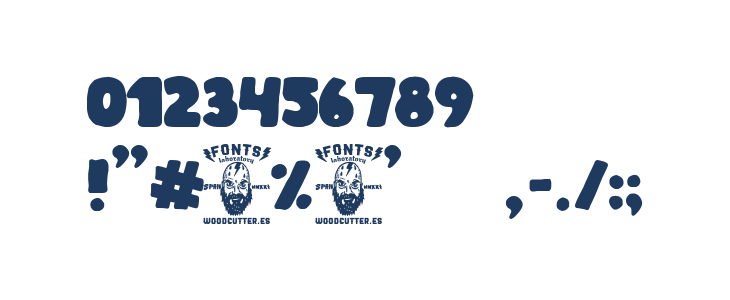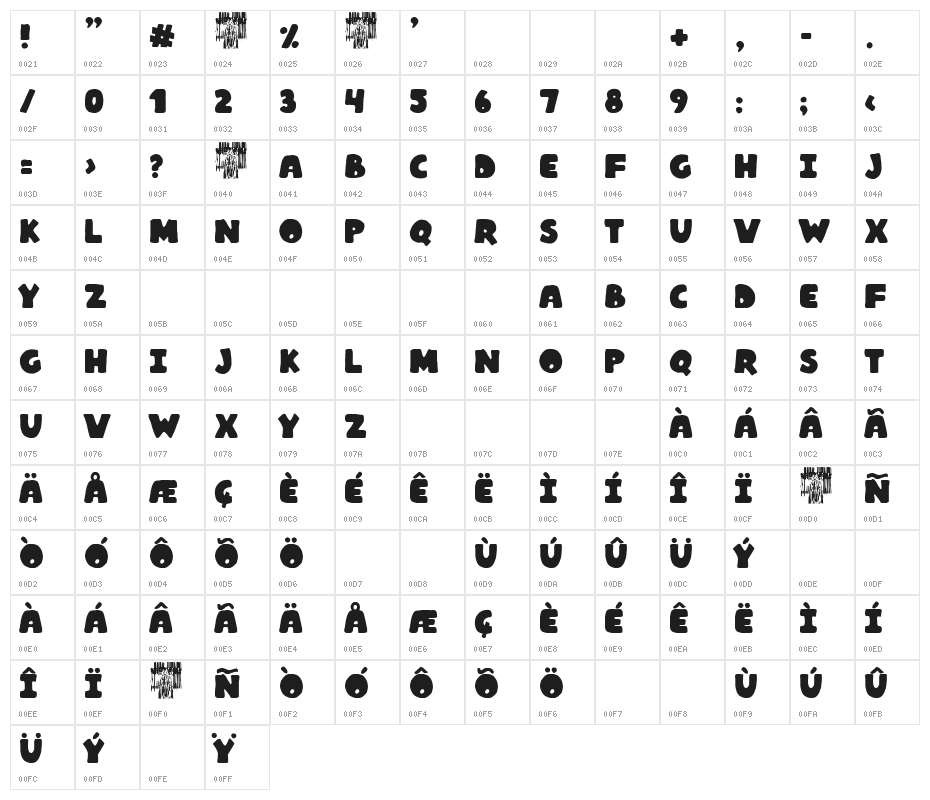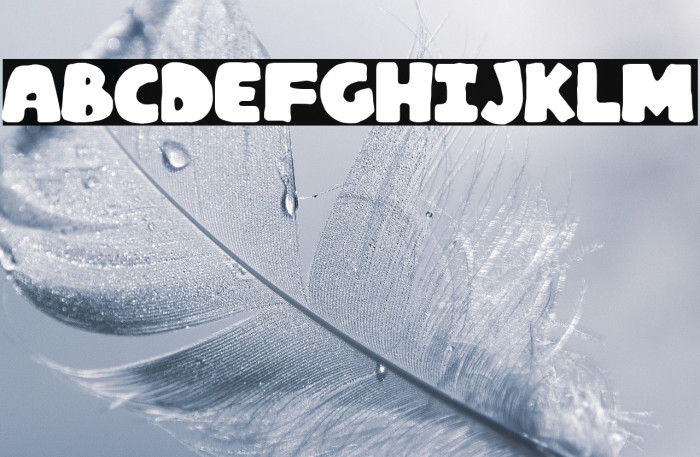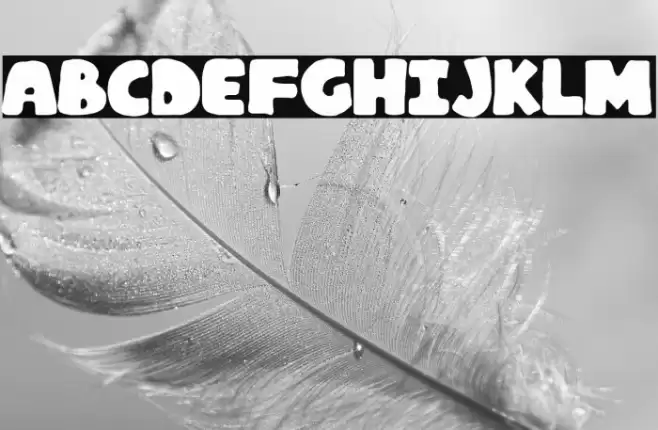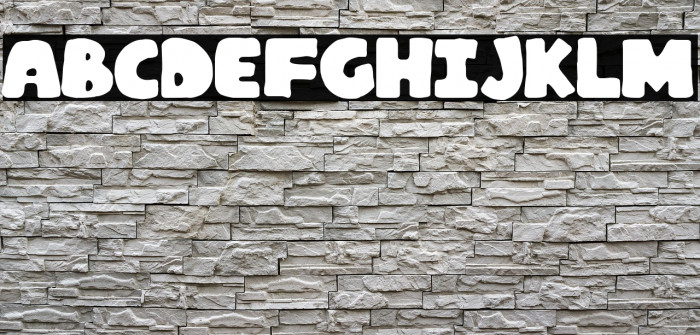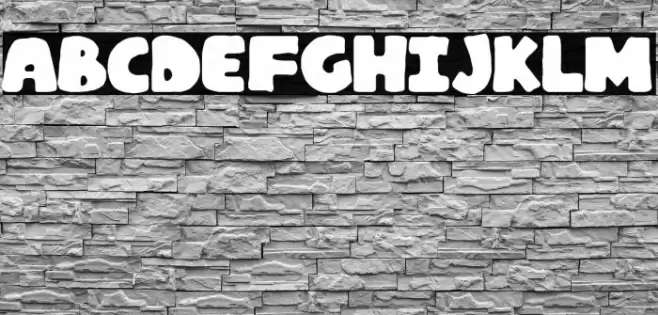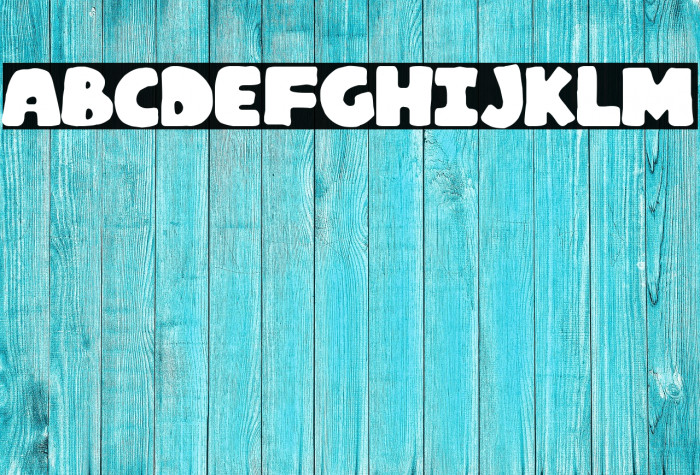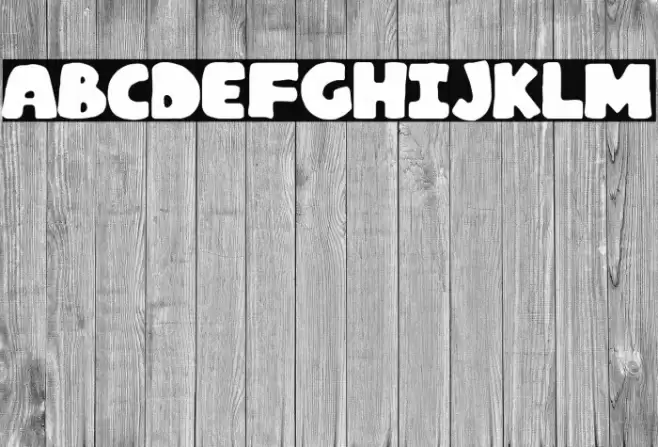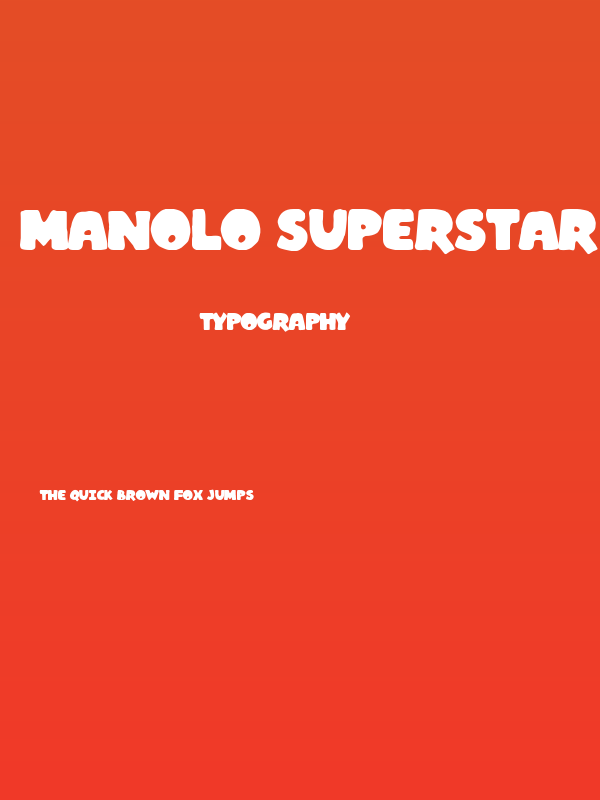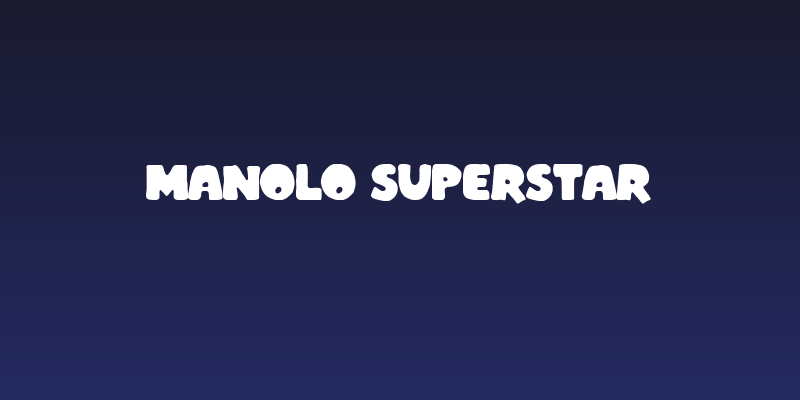
Manolo SuperStar Font
Manolo SuperStar Description
This font features bold, rounded characters with a playful and chunky appearance. The letters are uniformly thick, giving it a strong presence and making it highly legible. The style is reminiscent of retro or vintage designs, with a touch of whimsy that makes it stand out. The characters are evenly spaced, ensuring readability while maintaining a cohesive look. The numbers and special characters follow the same bold and rounded style, making them consistent with the overall design. This font is ideal for projects that require a fun and engaging aesthetic.
| Proposed Projects | Perfect for children's books, playful branding, posters, and retro-themed designs. |